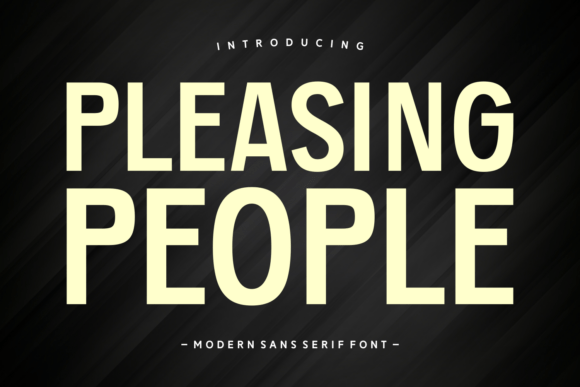
Pleasing People Font: A Bold Modern Sans Serif for Impactful Designs
In the world of typography, fonts play a crucial role in conveying messages, expressing emotions, and creating a lasting impression. Among the numerous fonts available, Pleasing People Font stands out as a bold modern sans serif font designed to command attention while exuding effortless cleanliness and approachability. With its unique characteristics, this font is ideal for creating impactful headlines, branding, posters, and editorial layouts that deliver both clarity and personality.
The Design Philosophy of Pleasing People Font
Pleasing People Font is a masterfully crafted typeface that embodies a perfect blend of modernity and sophistication. Its design philosophy revolves around creating a font that is not only visually appealing but also highly legible and versatile. The tall, structured letterforms of Pleasing People Font provide a sense of grandeur and elegance, making it suitable for designs that require a touch of luxury and refinement.
Key Features of Pleasing People Font
- Tall and Structured Letterforms: The font’s tall letterforms give it a sense of grandeur and elegance, making it perfect for headlines and titles.
- Subtle Curvature: The subtle curvature of the letterforms adds a touch of warmth and approachability to the font, making it suitable for a wide range of design applications.
- Bold and Modern: Pleasing People Font is a bold modern sans serif font that commands attention and exudes confidence.
- Clean and Approachable: Despite its bold nature, the font remains effortlessly clean and approachable, making it perfect for designs that require a touch of sophistication and elegance.
Use Cases for Pleasing People Font
Pleasing People Font is an incredibly versatile typeface that can be used in a wide range of design applications. Here are some of the most popular use cases for this font:
Impactful Headlines
Pleasing People Font is ideal for creating impactful headlines that command attention and make a lasting impression. Its bold and modern design ensures that your headlines stand out from the crowd and grab the reader’s attention.
Branding and Logo Design
The font’s clean and approachable nature makes it perfect for branding and logo design. It can be used to create logos that are both sophisticated and elegant, making it suitable for high-end brands and luxury products.
Posters and Flyers
Pleasing People Font is also ideal for creating posters and flyers that require a bold and attention-grabbing headline. Its tall and structured letterforms make it perfect for creating visually appealing designs that stand out from the crowd.
Editorial Layouts
The font’s legibility and clarity make it suitable for editorial layouts, such as magazines and newspapers. It can be used to create headlines, subheadings, and body copy that is both easy to read and visually appealing.
Benefits of Using Pleasing People Font
Pleasing People Font offers a range of benefits that make it an attractive choice for designers and typographers. Here are some of the most significant advantages of using this font:
Improved Legibility
Pleasing People Font is designed to deliver both clarity and personality, making it perfect for designs that require high legibility and readability.
Enhanced Visual Appeal
The font’s bold and modern design ensures that your designs stand out from the crowd and grab the reader’s attention.
Versatility
Pleasing People Font is an incredibly versatile typeface that can be used in a wide range of design applications, from headlines and branding to posters and editorial layouts.
Easy to Pair with Other Fonts
The font’s clean and approachable nature makes it easy to pair with other fonts, allowing you to create unique and visually appealing designs.
Pleasing People Font is a bold modern sans serif font that is designed to command attention while exuding effortless cleanliness and approachability. With its unique characteristics, this font is ideal for creating impactful headlines, branding, posters, and editorial layouts that deliver both clarity and personality. Whether you’re a designer, typographer, or simply someone who appreciates beautiful typography, Pleasing People Font is an excellent choice for any design project.